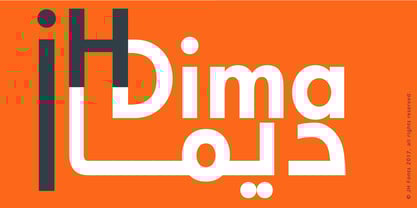
JH Dima
by JH Fonts
JH Dima is a modern style font; it is designed based on Koufi style & latin geometric fonts classification, typical for corporate identity, branding & signage...